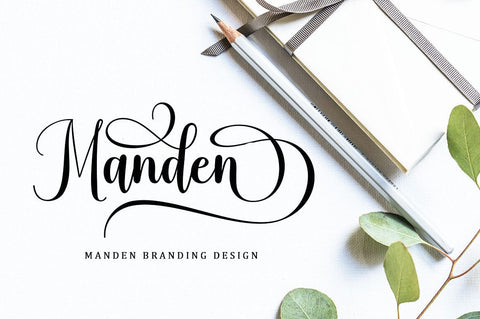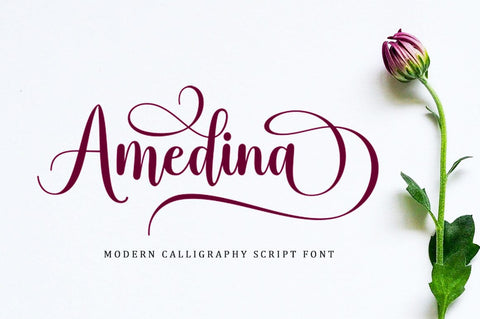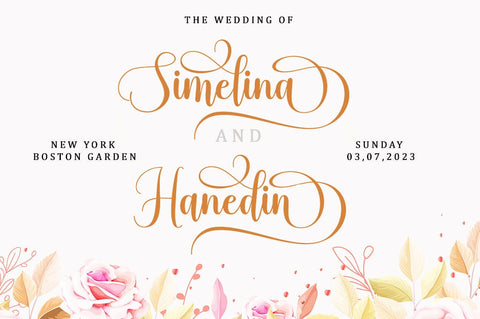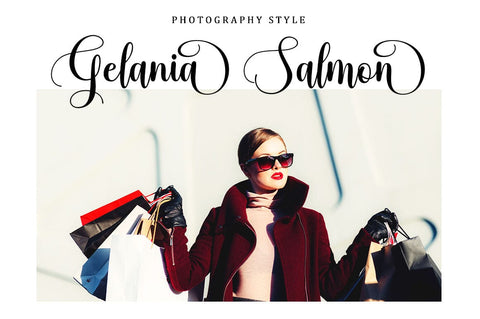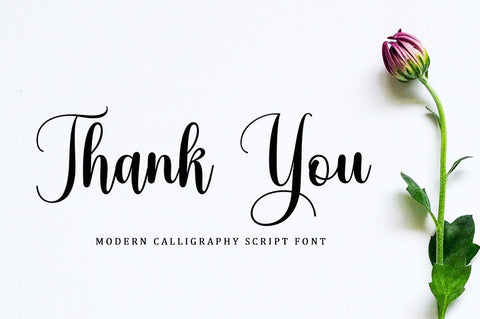
Amedina Script Font
Amedina is a modern script font that features a classic and elegant touch.
Amedina are attractive because they are sleek, clean, feminine, sensual, glamorous, simple and very easy to read, thanks to their many fancy letter joints. I also offer a decent number of stylistic alternatives for some of the letters. Classic style is very suitable to be applied in various formal forms such as invitations, labels, restaurant menus, logos, fashion, make up, stationery, novels, magazines, books, greeting/wedding cards, packaging, labels or all kinds of advertising purposes . . . . . . . .
Contains full set:
-Uppercase
-Lowercase
-Alternative
-Punctuation
-Number
-Multilingual support.